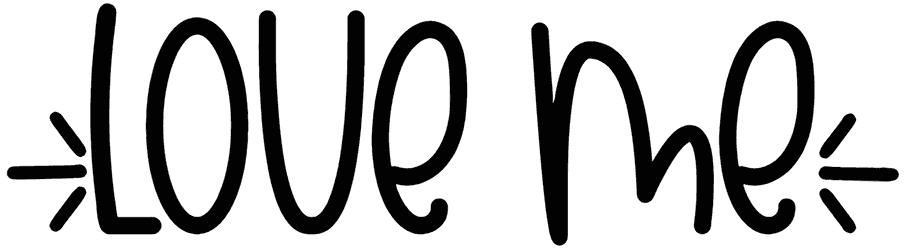
Hello Morgan Font
Ready to give your next design a whole new color, specifically a classy and approachable kind? Then we strongly suggest you download Hello Morgan right away. It might not be that great in terms of legibility, due to its cursive design, but it does promise a stylish outline for your text, ironically for the same reason.
And the best part is you can use this curly font in lots of different projects all at once, including letters, quotes, watermarks, etc.
Designed by: Jen Jones